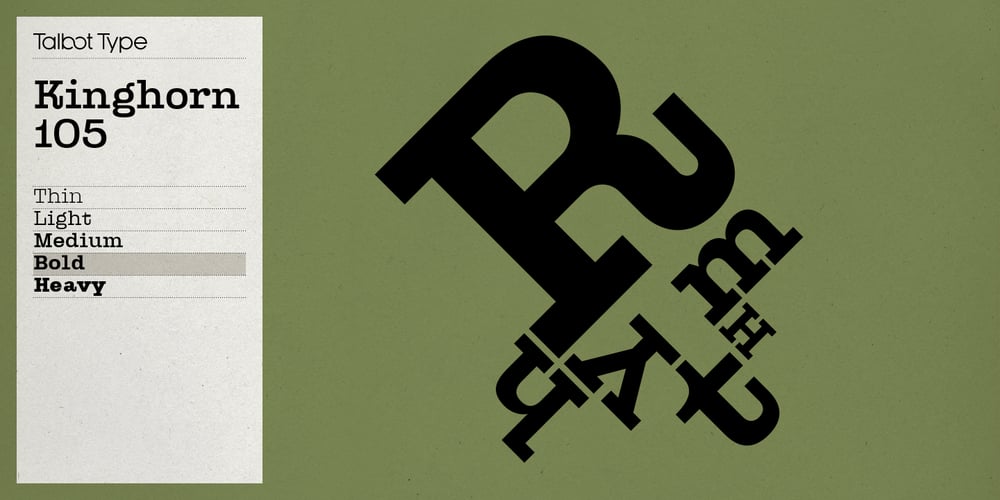
Kinghorn 105 Font Family was designed by Adrian Talbot and published by Talbot Type. Kinghorn 105 contains 10 styles and family package options. Kinghorn 105 is an Egyptian style slab-serif. The strokes are all of a roughly equal weight for an even, geometric look. Although original Egyptian slabs date from the early 19th century, the even look gives the font a balanced, contemporary look. It’s intended mainly as a display font, but it’s even strokes mean it remains legible even at smaller sizes. It’s also available with some character variations as Kinghorn 205.